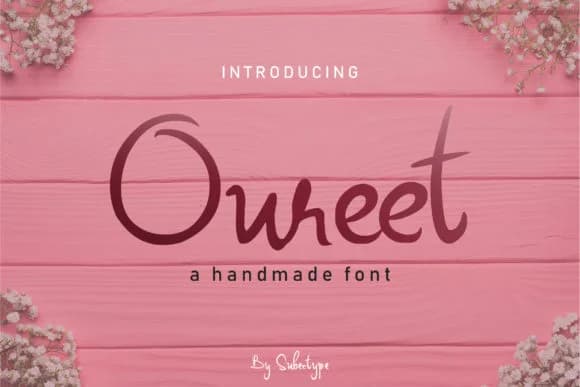
Oureet by Subectype is a casual handwritten script that brings authentic, personal character to any creative project. This unpretentious typeface works beautifully across wedding invitation suites, hand-lettered product labels for boutique brands, personalized thank you cards, and bespoke stationery systems. The gentle, flowing letterforms capture the warmth of pen-to-paper writing while remaining legible at various sizes, making it equally suited to intimate correspondence, greeting cards, and branded materials. Whether you're designing a small-batch cosmetics label, crafting save-the-date announcements, creating heartfelt appreciation notes, or developing cohesive brand identity systems, Oureet's accessible handwritten aesthetic enhances work that values personality and human connection. The font's natural rhythm makes each word feel personally written, helping brands and individuals connect with their audiences on an emotional level. For greeting card designers, stationery creators, and small business owners, Oureet delivers both warmth and professionalism, striking an ideal balance between casual friendliness and polished execution. Its versatility extends from digital projects to print applications, allowing creators to maintain consistent visual branding across all channels without losing the organic, authentic feel that makes handwritten type so appealing. From intimate notes to client-facing materials, Oureet suits everything in between. Get Oureet on Creative Fabrica and see how this charming handwritten font brings warmth to your designs.
- Elegant, Flowing, Oureet
Oureet Font is a script font that shines as a display or heading face. Pair it with a clean sans-serif or serif font for body text β the contrast creates a clear hierarchy while the two styles stay balanced and easy to read.
Oureet Font